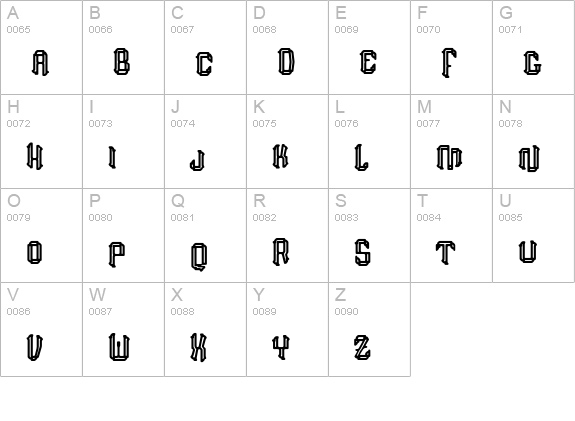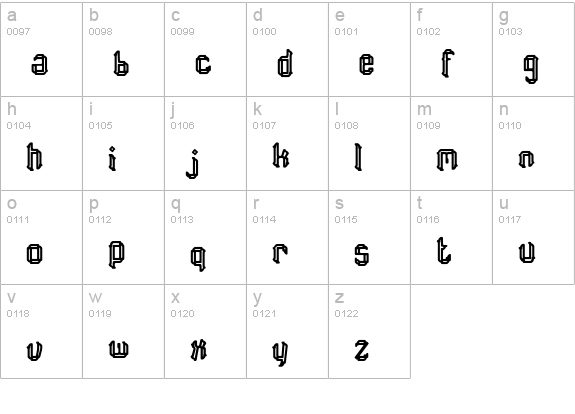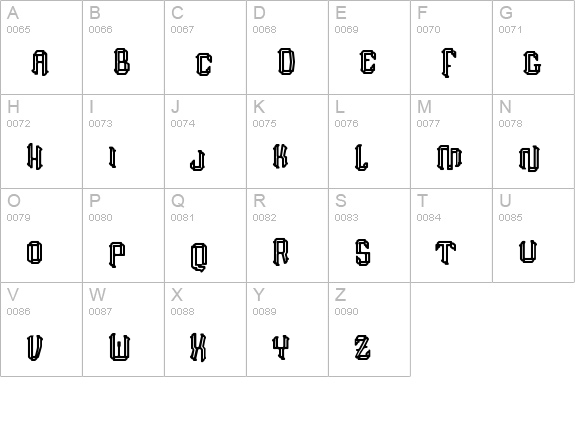
Slag-Irregular Font Details
Introducing Slag-Irregular font, a stunning and captivating typeface that will effortlessly elevate your design projects to new heights. With its unique and irregular letterforms, Slag-Irregular adds a touch of boldness and edginess to any creative endeavor. This font is a perfect blend of modernity and versatility, making it suitable for a wide range of design applications. Whether you are working on branding, advertising, packaging, or web design, Slag-Irregular will bring a fresh and contemporary vibe to your creations. The irregular shapes and strokes of Slag-Irregular font create an intriguing visual experience, catching the eye of viewers and leaving a lasting impression. Its distinctive personality adds a sense of character and originality to your texts, setting them apart from the crowd. One of the best features of Slag-Irregular font is that it is freely available to download at FontsMarket.com. This means that you can easily access and use this exceptional font in your projects without any restrictions. The creators of Slag-Irregular believe in the power of creativity and accessibility, and they want designers like you to have the opportunity to unleash your imagination and bring your visions to life without any limitations. So, if you are looking for a font that combines uniqueness, versatility, and a touch of free-spiritedness, Slag-Irregular is the perfect choice for you. Download it now from FontsMarket.com and let your creativity soar to new heights.